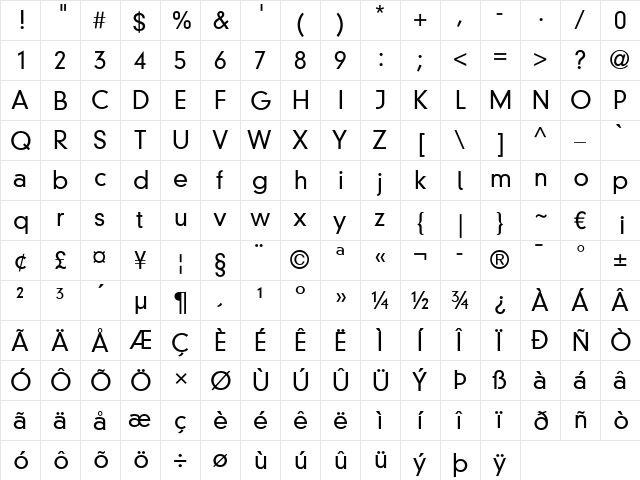
DINNeuzeitGrotesk LT Light Regular
Design Context for DINNeuzeitGrotesk LT Light Typeface
DINNeuzeitGrotesk LT Light takes a clean, functional approach — its unadorned letterforms prioritise legibility and work reliably across screen and print environments. Its slender proportions lend an understated elegance to any composition.
Ideal for fashion and beauty branding, minimal editorial layouts, and premium digital experiences.
Font Pairing: Pair DINNeuzeitGrotesk LT Light with a medium or bold serif for headlines — the weight contrast creates an elegant, high-end feel.
Pro Tip: Avoid using DINNeuzeitGrotesk LT Light at very small sizes where its slender strokes can disappear. It performs best at medium to large sizes.